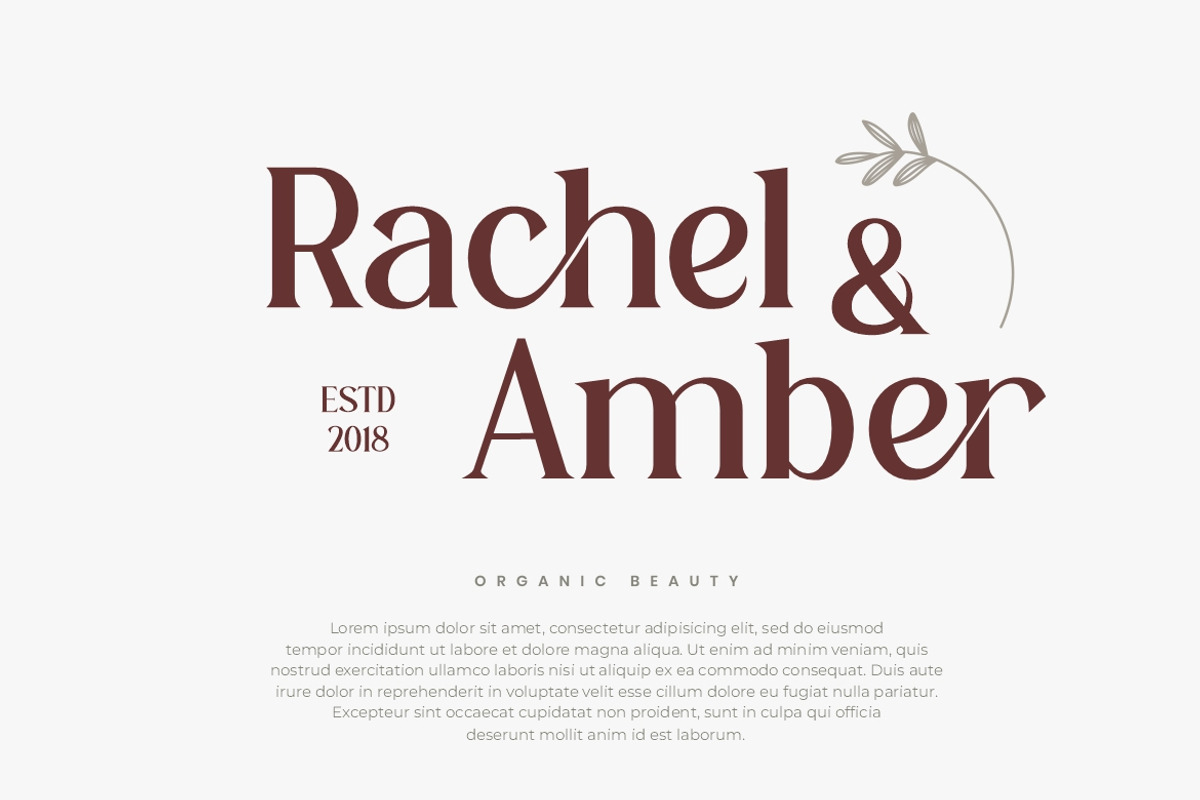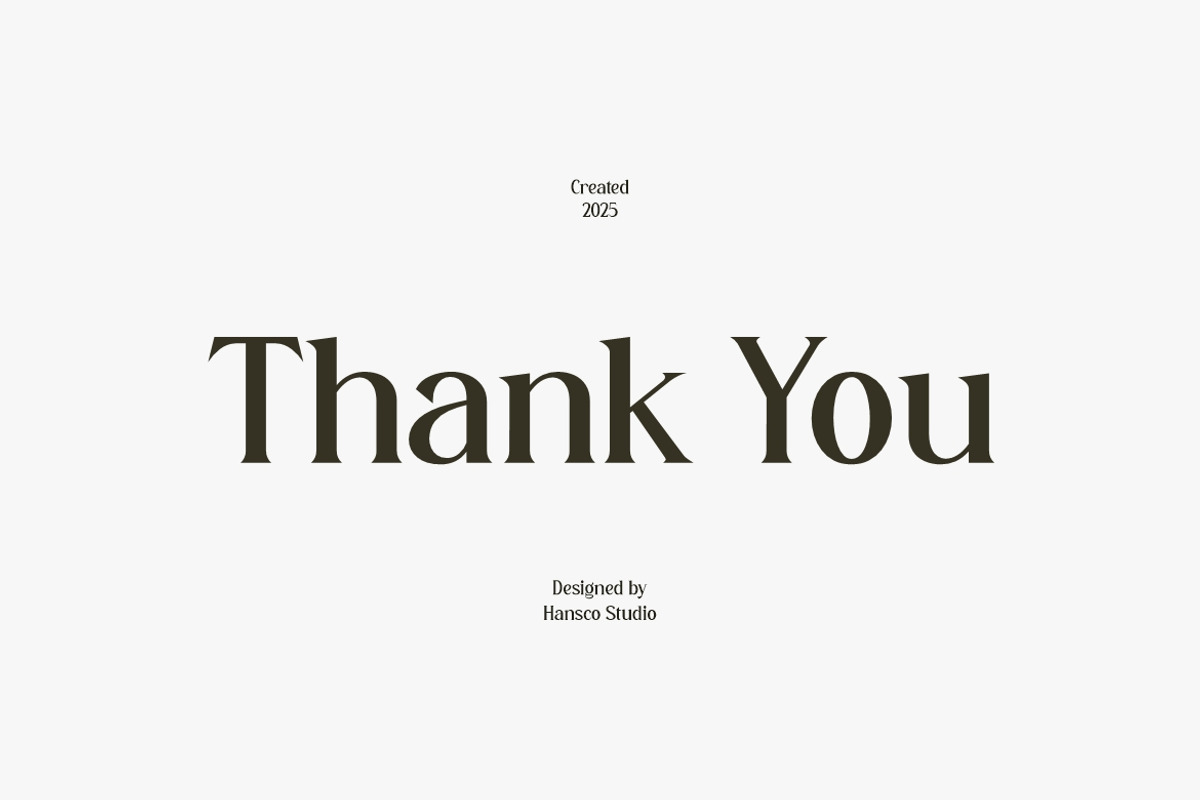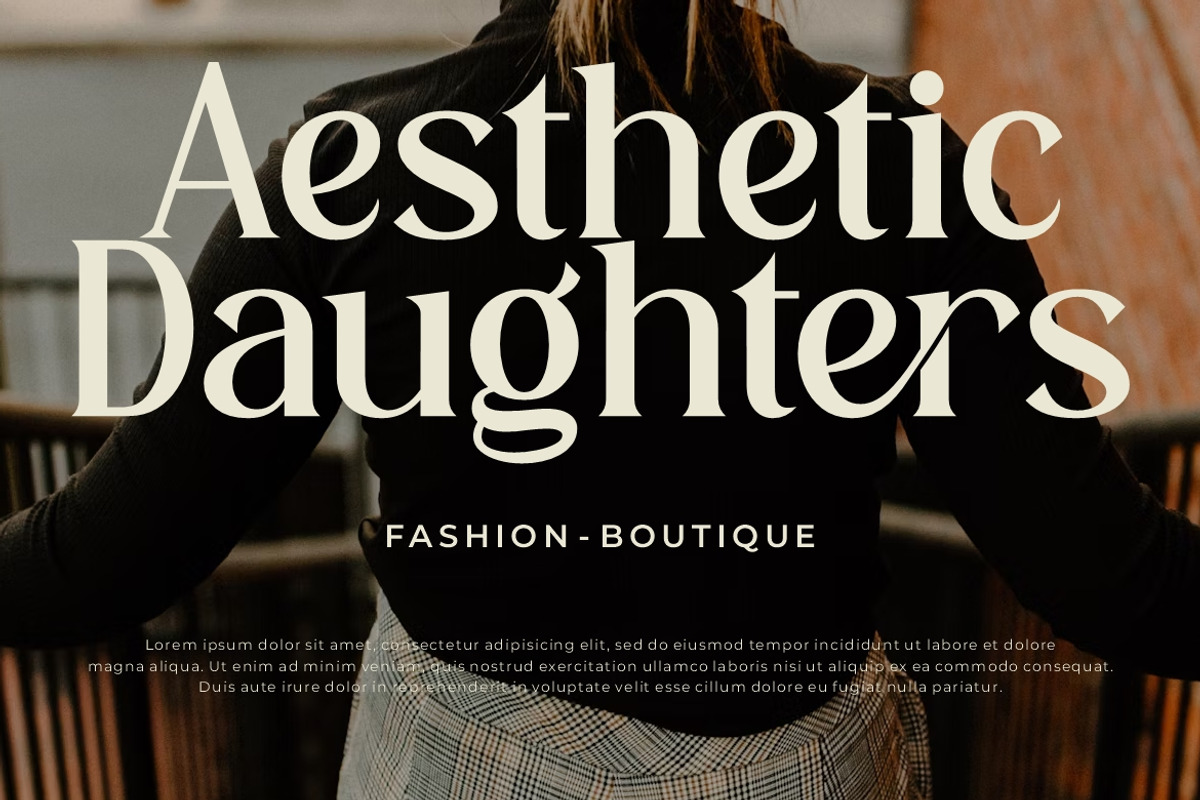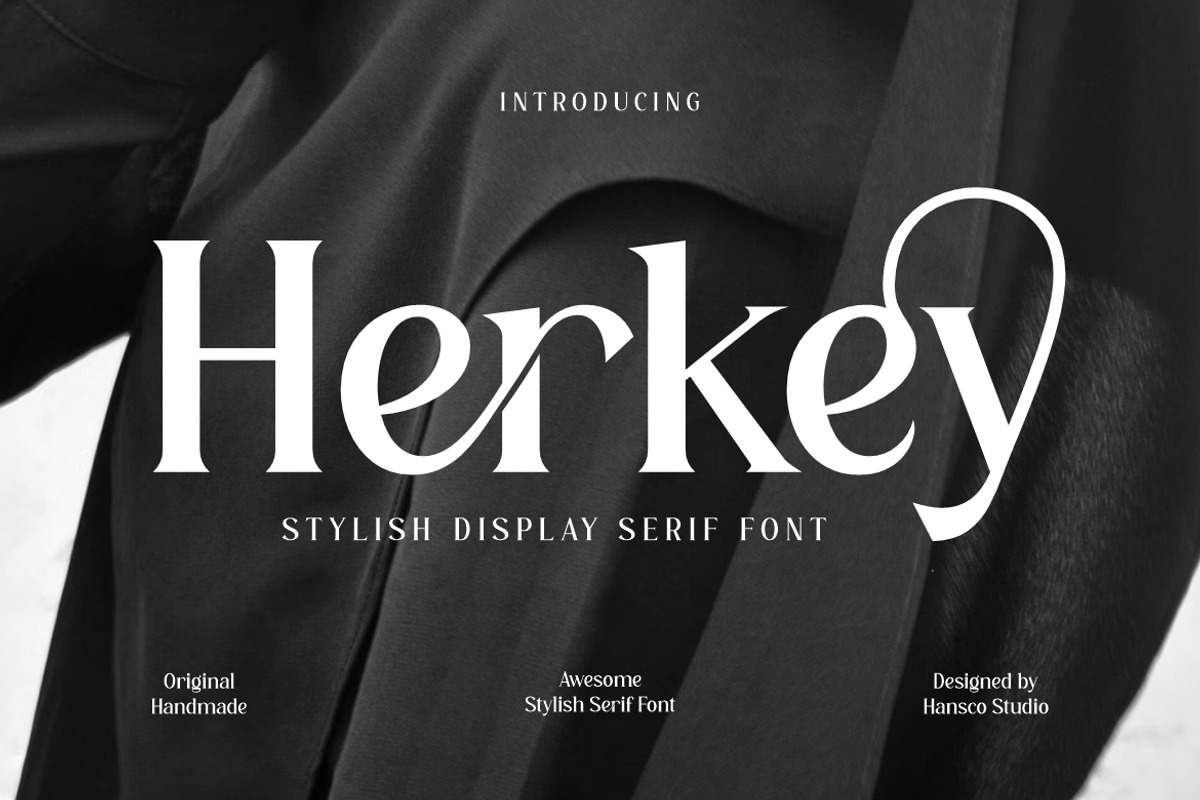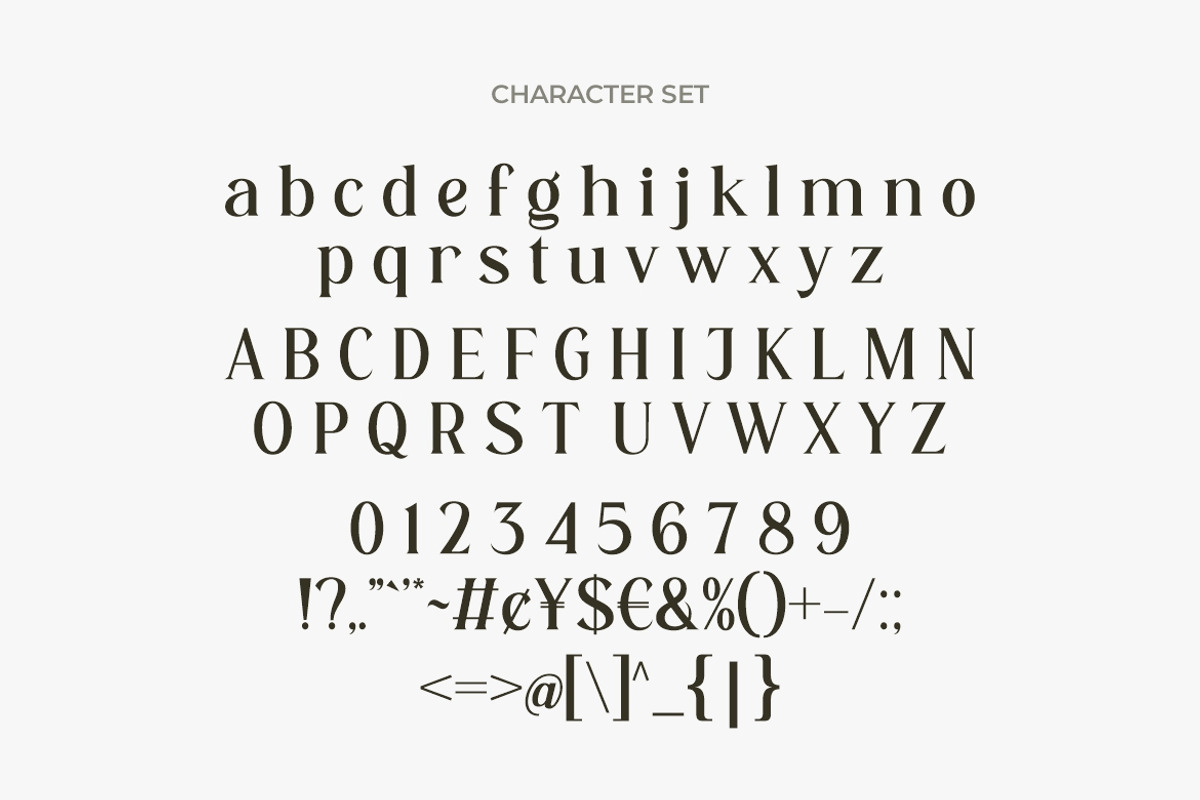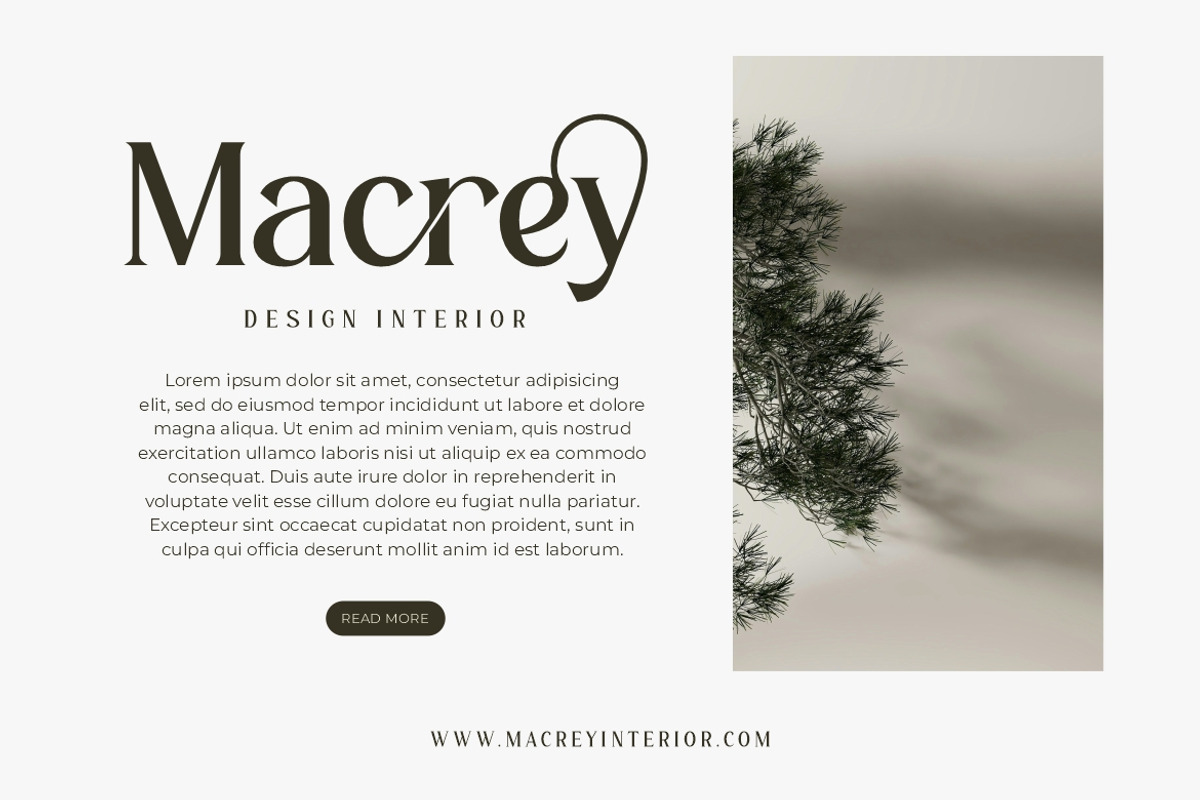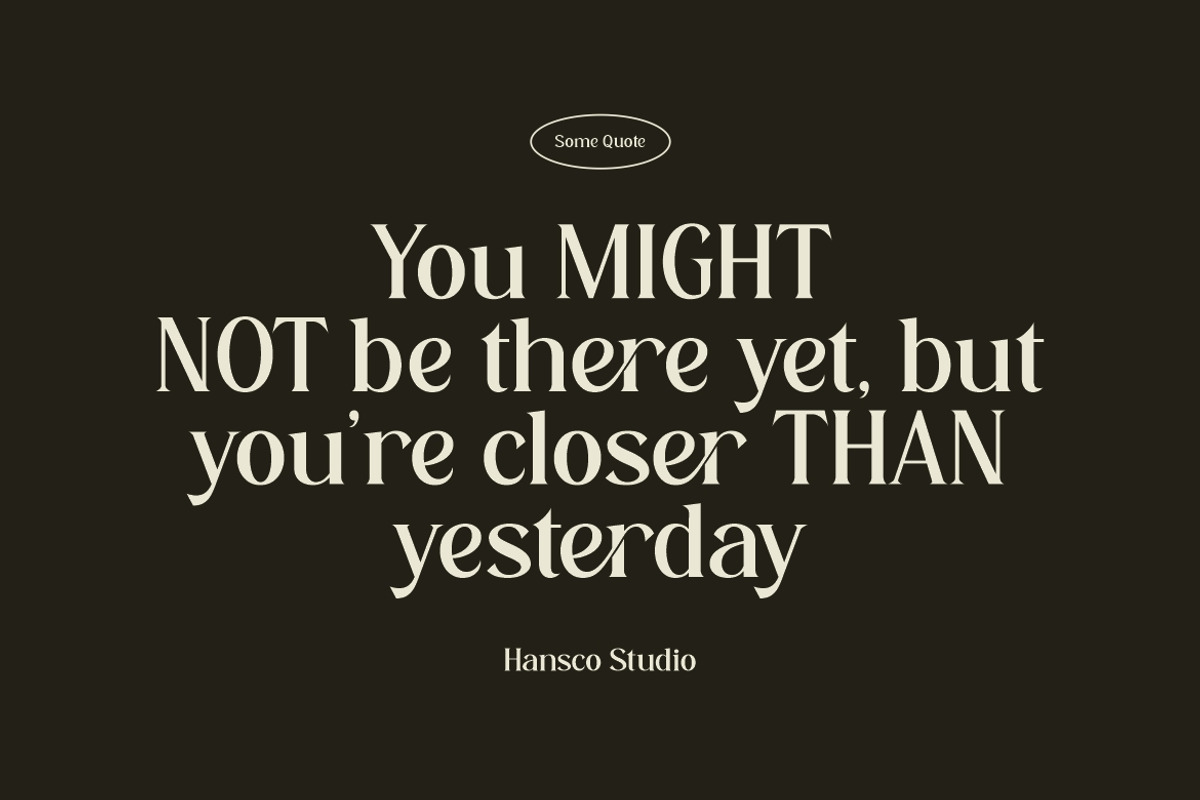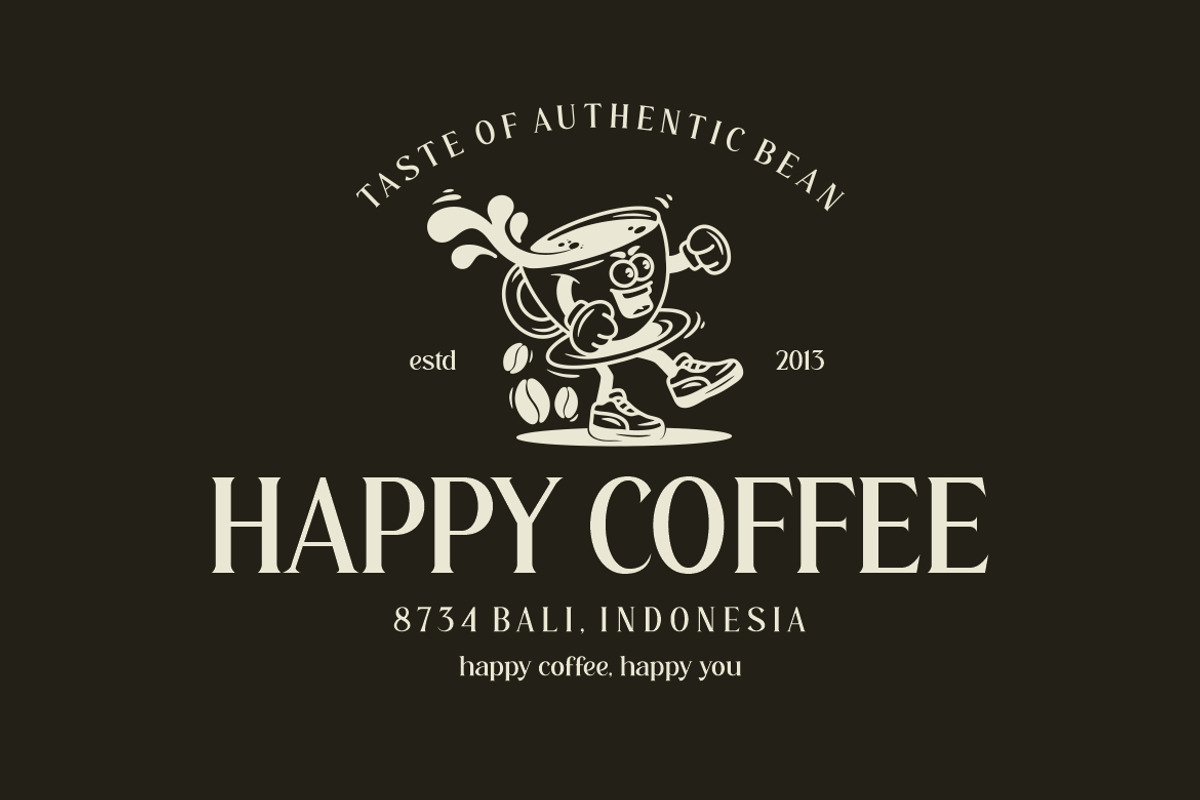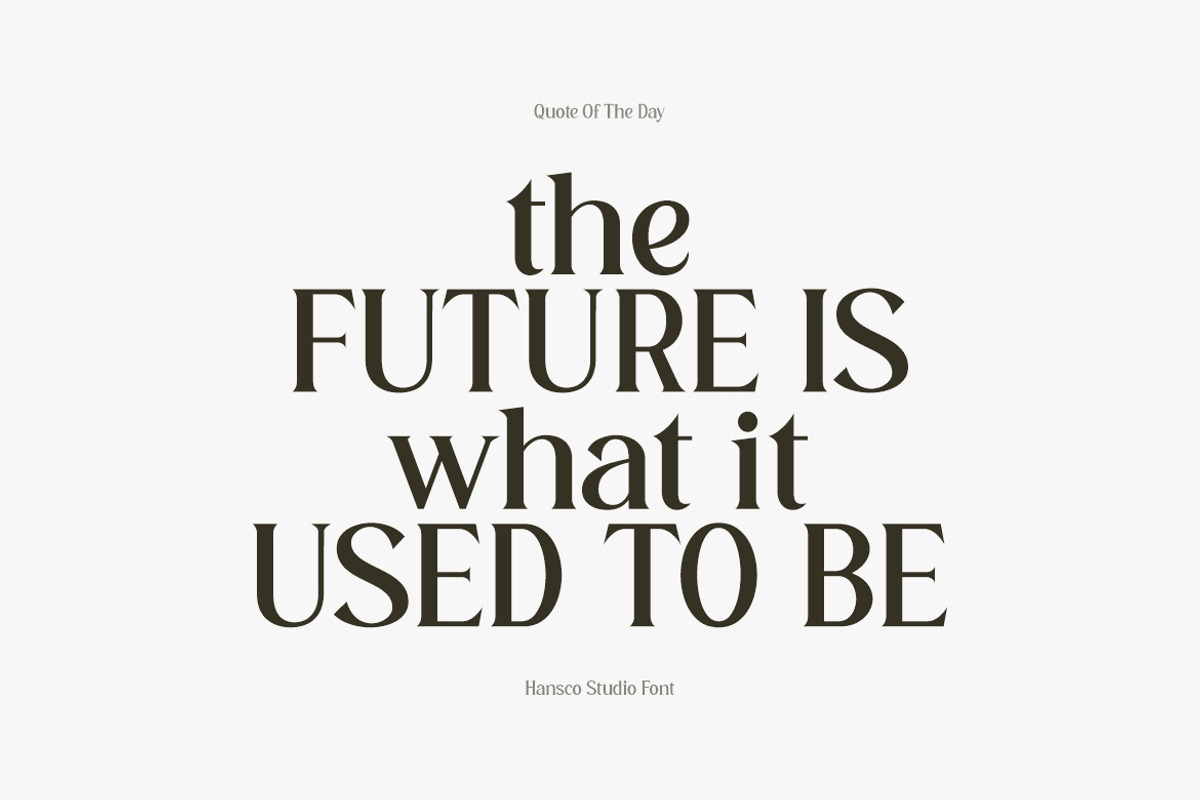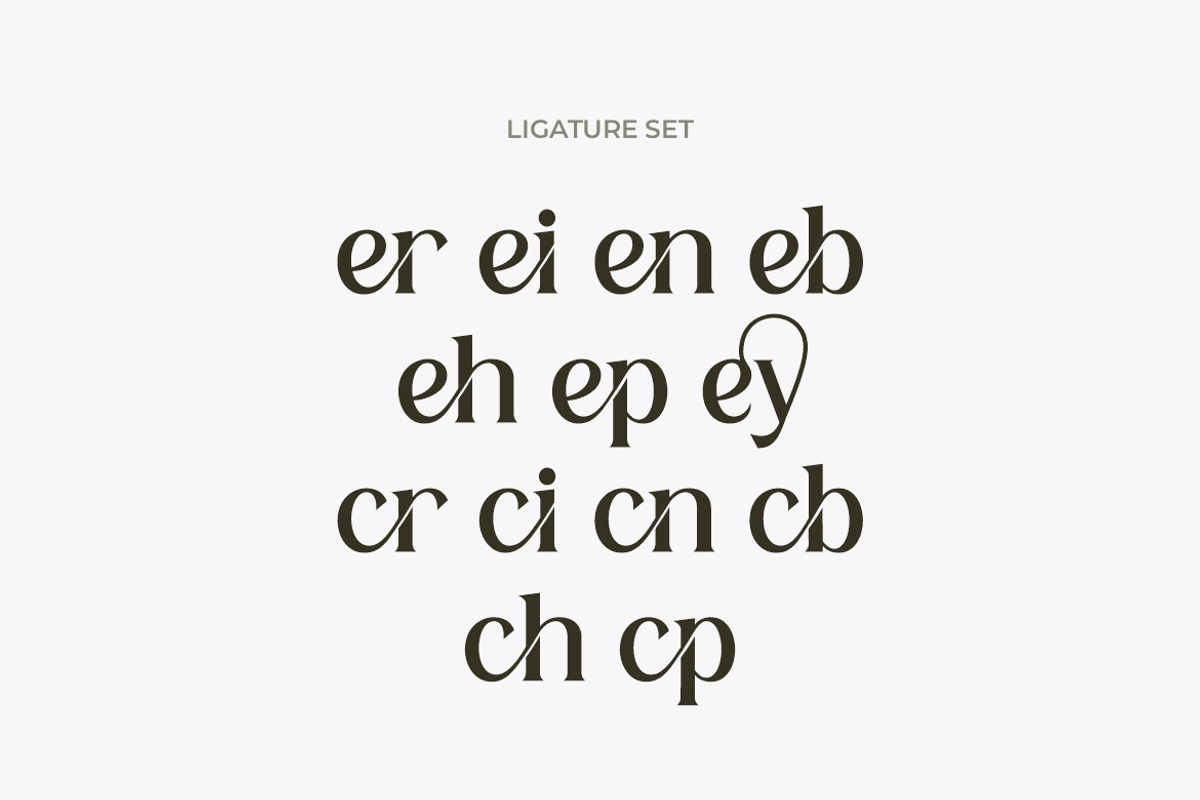
Herkey Display Serif Font
Herkey Font is a elegant display serif font with modern look that is perfect for multipurpose projects. This Font inspired by the concept of romantic vibes and made it into a unique yet luxury style. This font is also looks fabulous and will fit well in any design and very recommended for logo, crafts, posters, books, branding, quotes, print templates, packaging, invitations, product labels, advertising, wedding project and more. This typeface comes in uppercase, lowercase, with punctuation, symbols, numerals, ligature and stylistic alternates. This font is PUA encoded which means you can access all of the charming glyphs and swashes with Character Map on Windows or Font Book on Mac.
Number & Punctuation
Multilingual Supports
Alternate & Ligature (for some character)